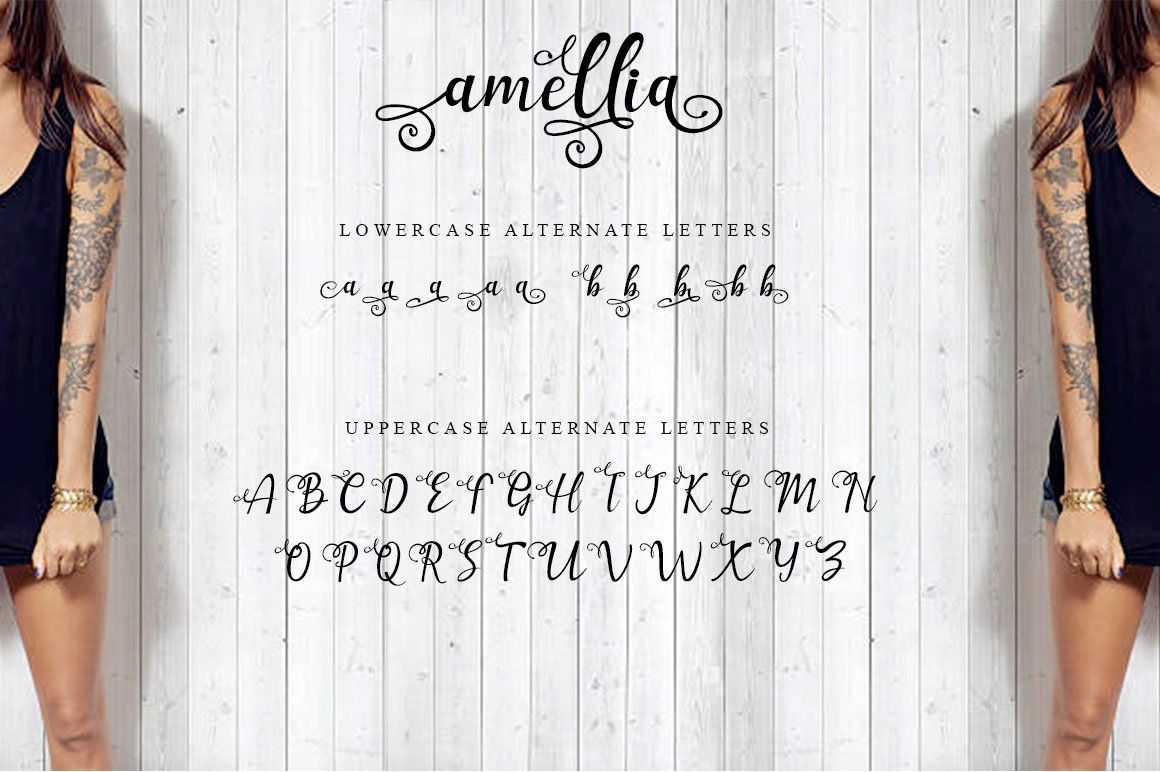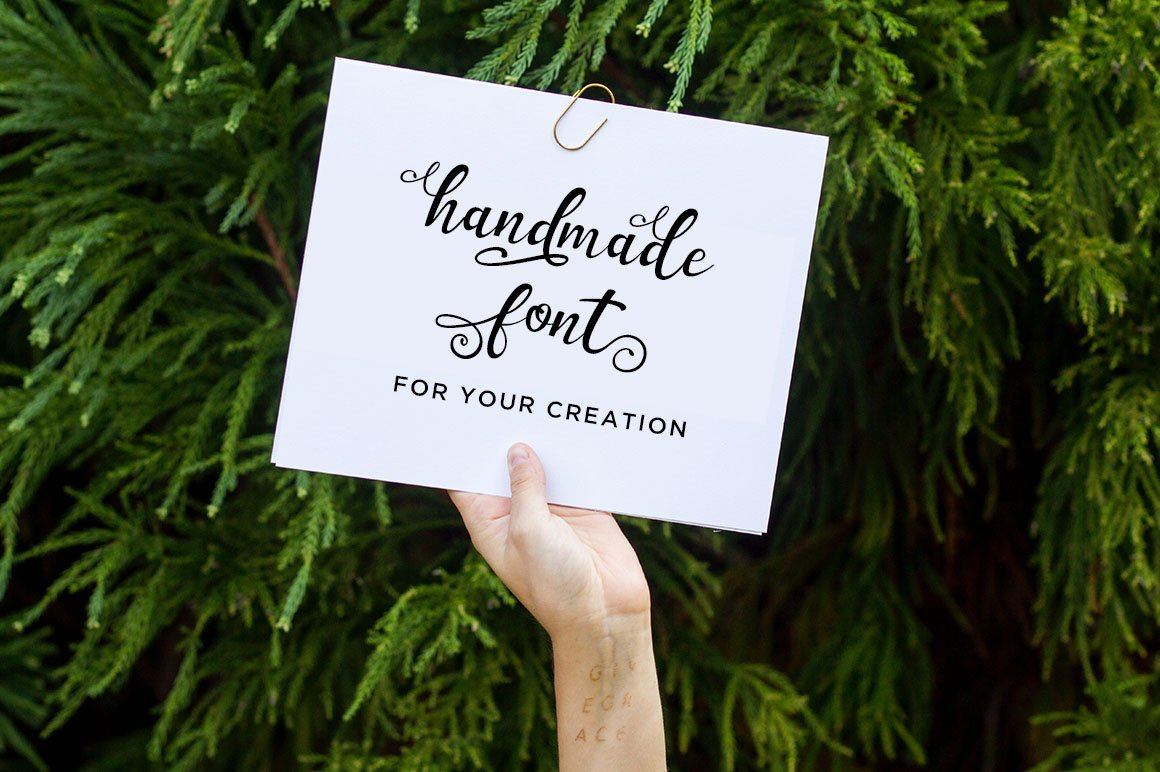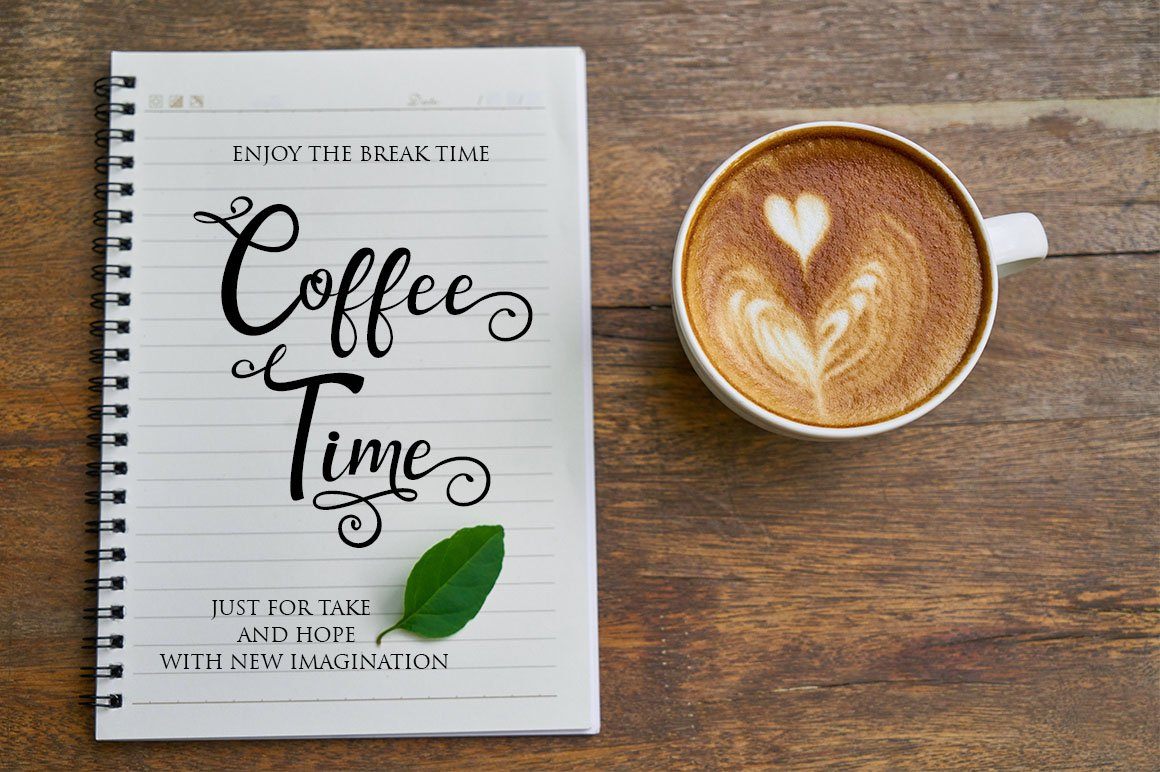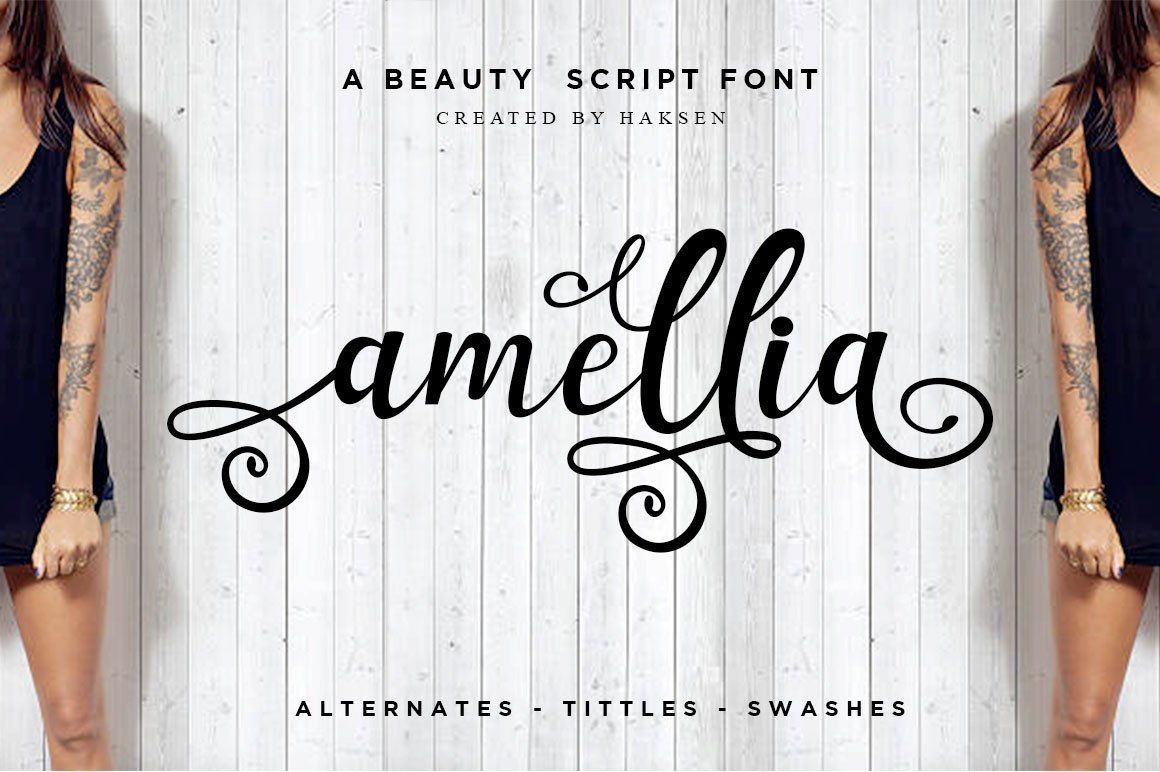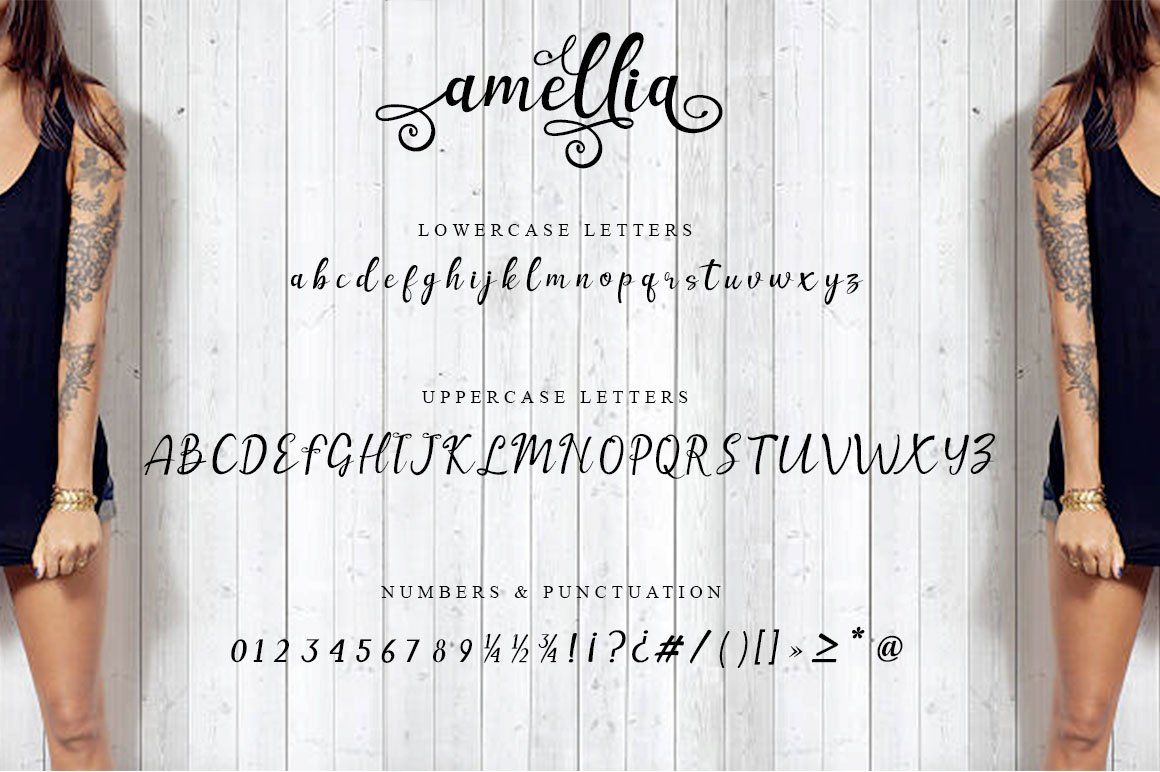
Amellia Beauty Script
I just released my new font with the name Amellia is one of beauty script font with many alternate fonts. I recommend to use Adobe Photoshop or illustrator to get alternates font in Glyph menu. WHAT YOU GET? Amellia otf and ttf with many alternates. As You can see in the preview. You will make many of version in every letters. Thanks for visited. Happy Designs